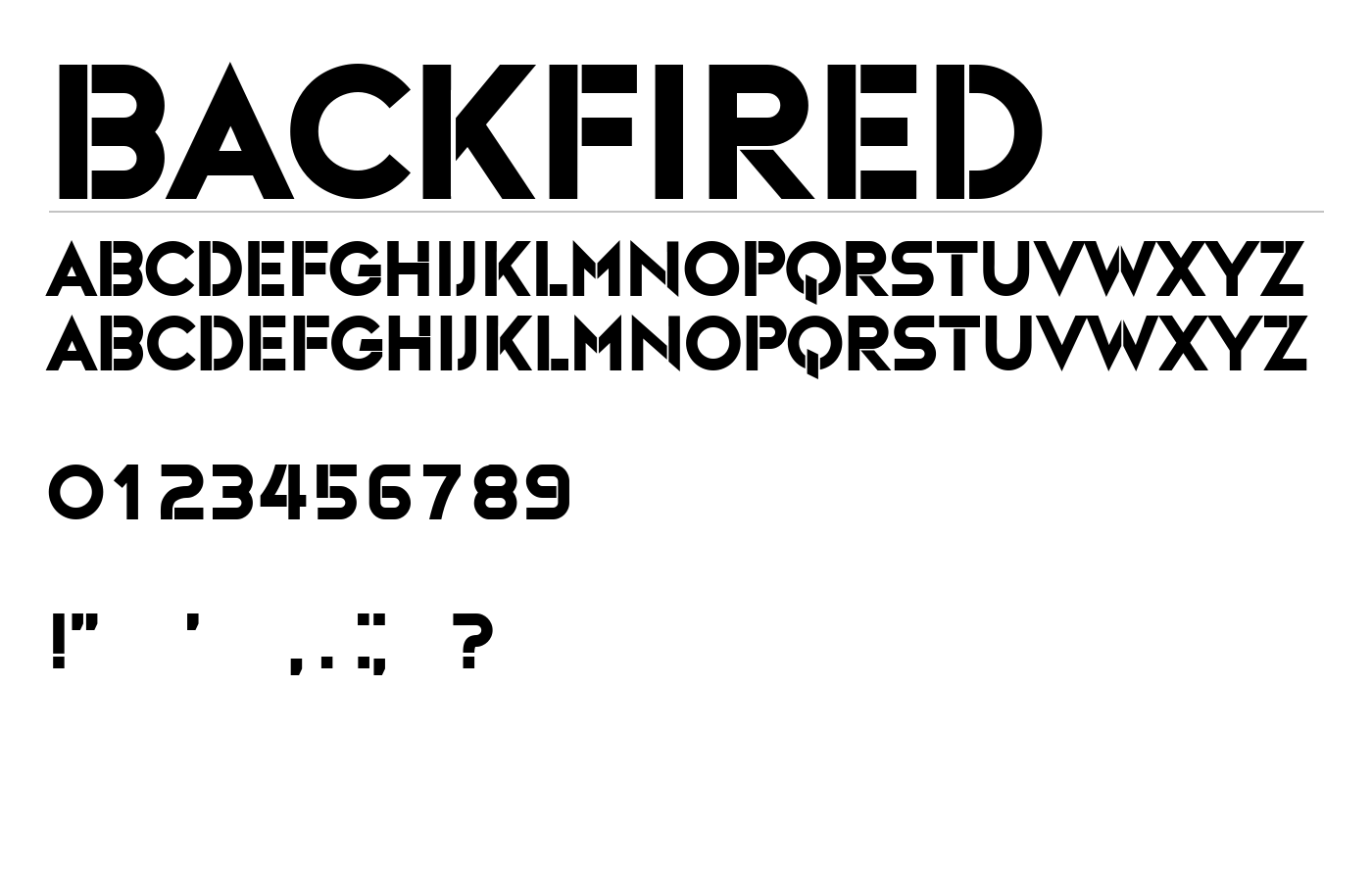
Backfired is a bold, geometric sans serif font with a strong, modern feel, characterized by its sharp angles and distinctive cut-out details that add a unique, edgy twist. Its consistent stroke weight and compact letterforms make it highly impactful for headlines, branding, and projects looking to convey strength and contemporary style. This font is ideal for fashion, technology, and creative industries seeking a bold statement with a sleek, futuristic vibe.
Backfired Font
About Backfired Font